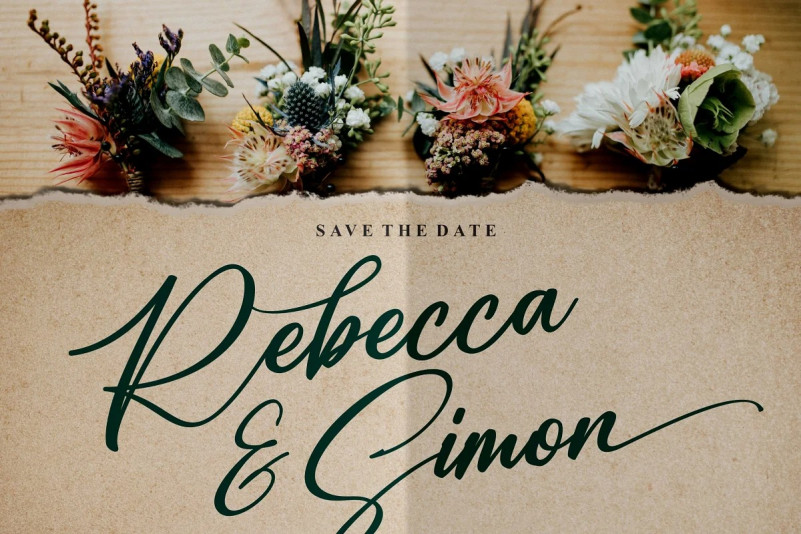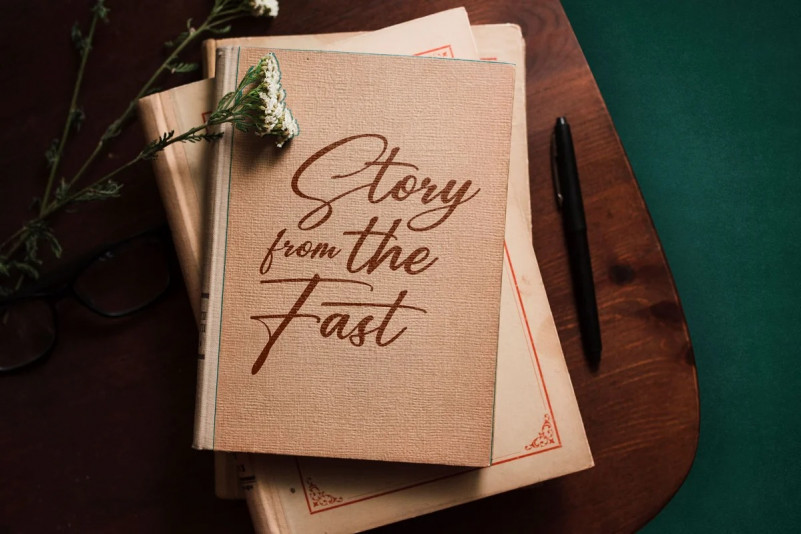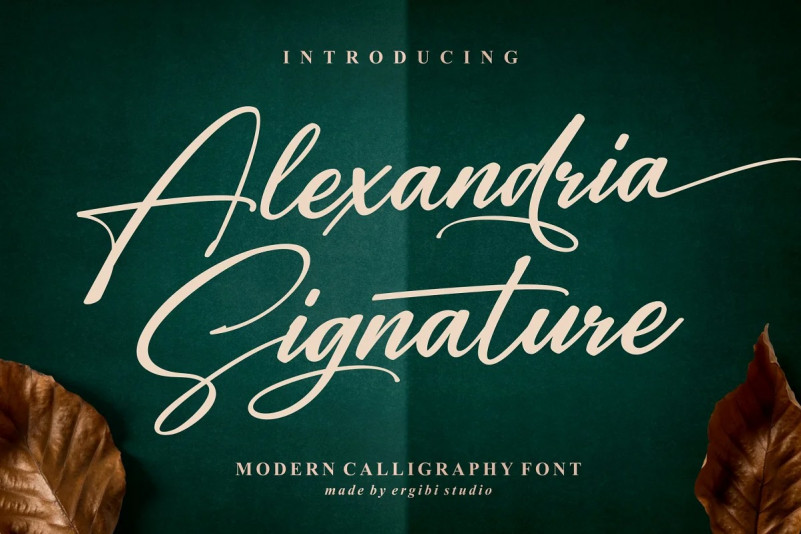
Alexandria Signature Font
Alexandria Signature Script Font is a modern Signature font crafted in an elegant and professional style with alternative characters. perfect font for creating signature logos and watermarks for photography studios or personal photography logos, best for initial logo or brand signatures.
Alexandria Signature includes a full set of beautiful handwritten upper and lower case letters, numbers, assorted punctuation marks. All lowercase letters include start and end strokes, providing a realistic handwriting style.